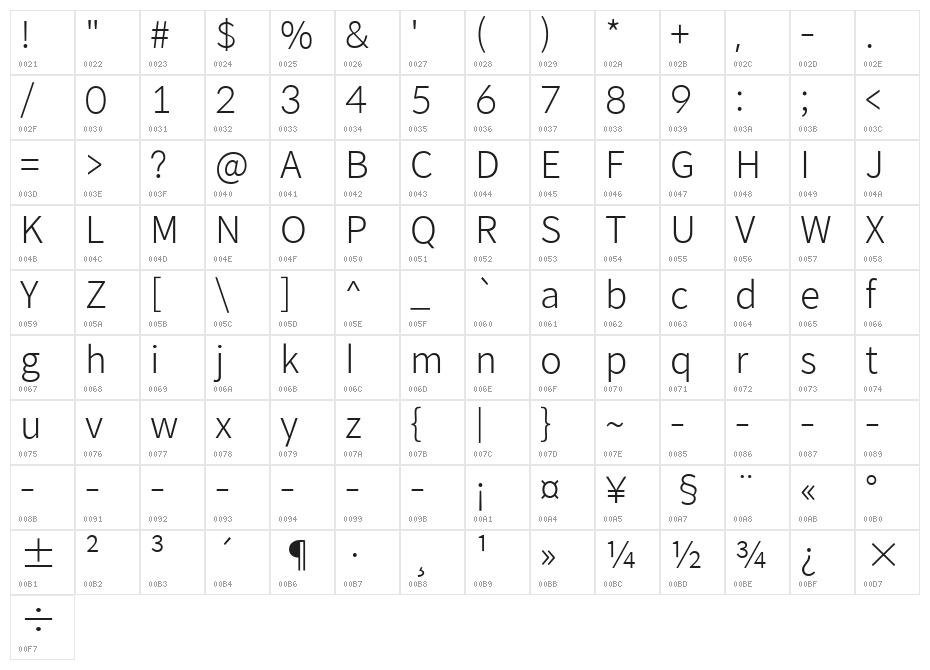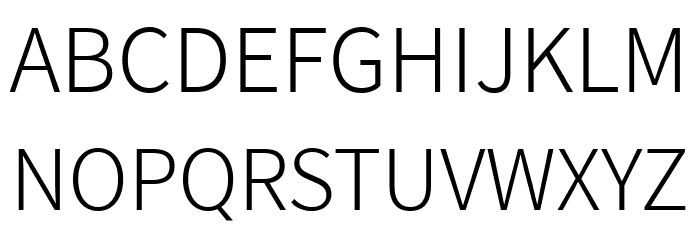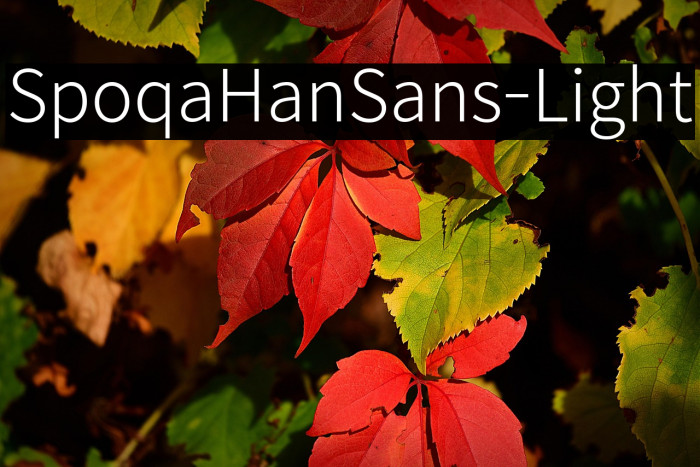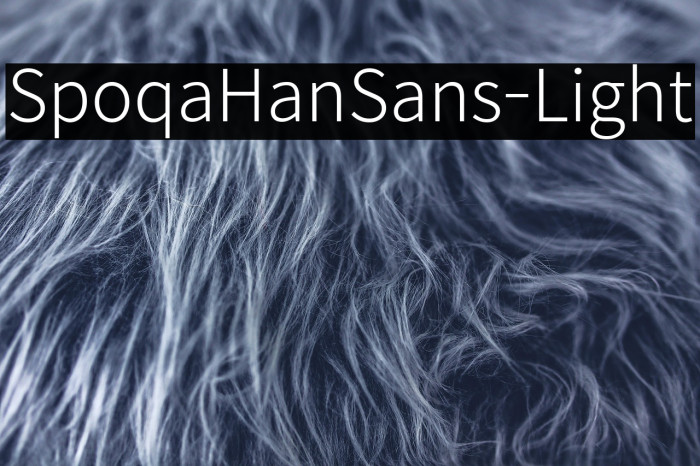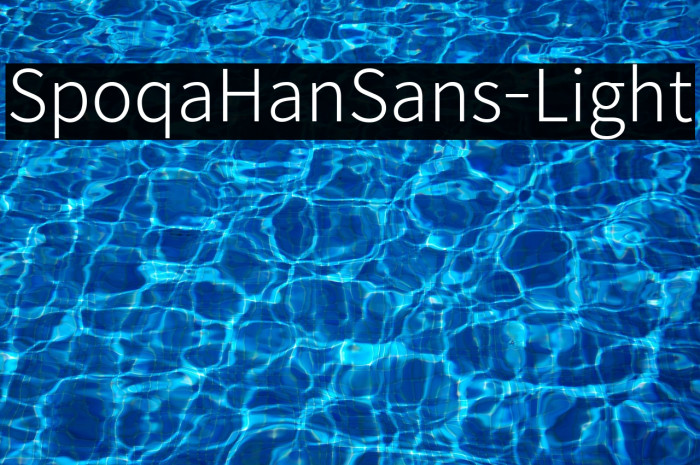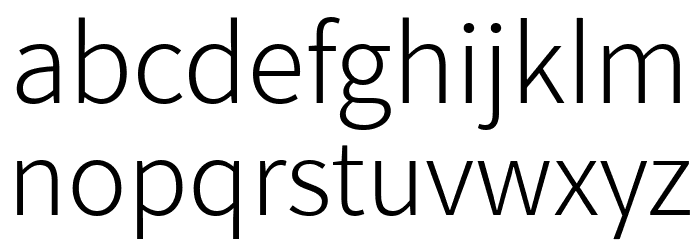
SpoqaHanSans-Light Font
SpoqaHanSans-Light Description
This font exhibits a clean and modern sans-serif style, characterized by its simplicity and clarity. The letterforms are geometric with even stroke widths, providing a balanced and harmonious appearance. The uppercase and lowercase letters maintain a consistent height, contributing to its legibility. The numerals are straightforward and align well with the overall aesthetic. Special characters are designed with the same minimalist approach, ensuring uniformity across all glyphs. This font is versatile, suitable for both digital and print media, and can be used effectively in various design contexts.
| Use Case | Body text, User interfaces, Branding |
| Proposed Projects | Ideal for web design, corporate branding, user interfaces, and editorial layouts. |